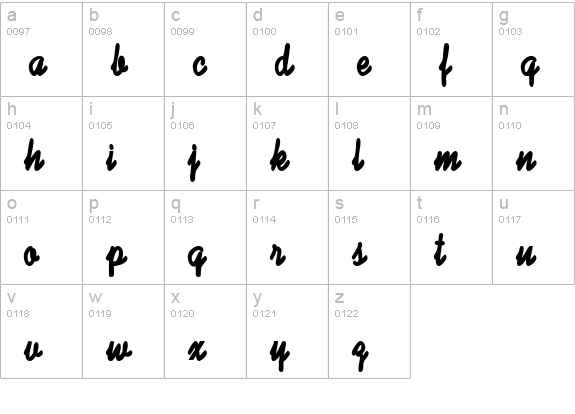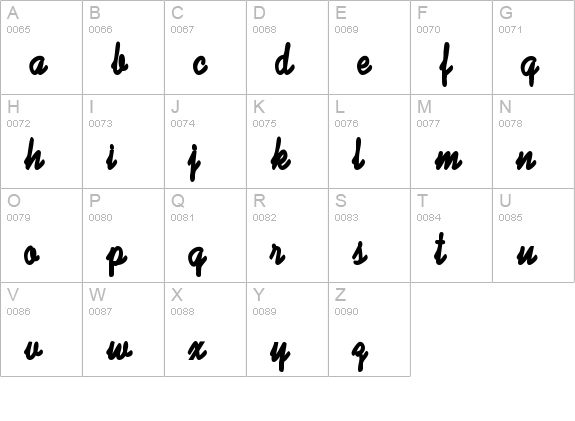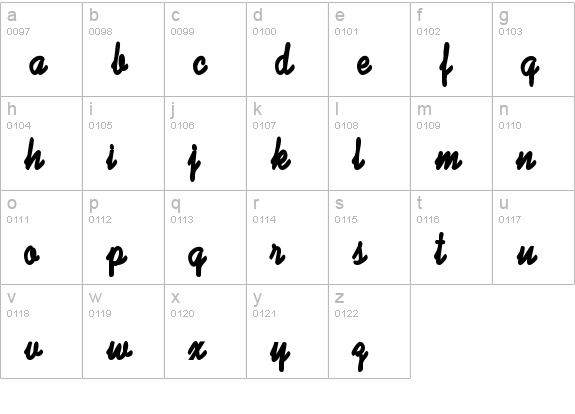
YesterdayMan Font Details
The YesterdayMan font is a unique and stylish typeface that exudes a sense of nostalgia and charm. With its retro-inspired design and elegant curves, this font is perfect for adding a touch of vintage flair to your projects. The versatility of YesterdayMan makes it suitable for a wide range of design applications, from logos and branding to posters and invitations. What sets YesterdayMan apart is not just its timeless appeal, but also the fact that it is available for free download at FontsMarket.com. This means that you can easily access this beautiful font and use it in your designs without any cost. Whether you're a seasoned designer or just starting out, YesterdayMan is a wonderful addition to your font collection. Download it today and let its classic charm elevate your creative projects to new heights.